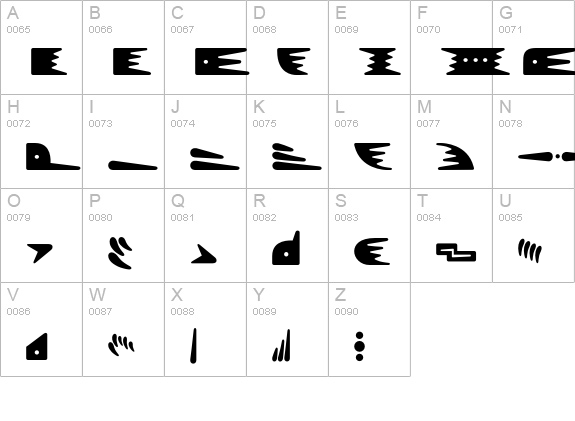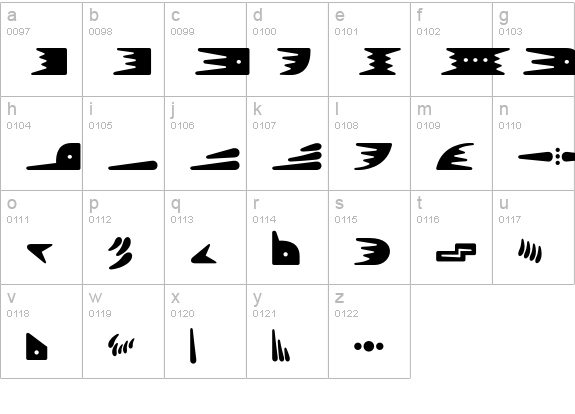
Bronz-Ornaments Font Details
Bronz-Ornaments font is a stunning display typeface that exudes elegance and sophistication. With its intricate design inspired by ornate bronze artifacts, this font is perfect for adding a touch of luxury to your projects. The detailed ornaments and embellishments make Bronz-Ornaments font a standout choice for invitations, branding, and decorative designs. What's even better is that Bronz-Ornaments font is available for free download at FontsMarket.com. This means you can easily access this exquisite font and incorporate its unique charm into your creations without any cost. Don't miss out on the opportunity to elevate your designs with the beauty of Bronz-Ornaments font. Download it today and let your creativity shine.